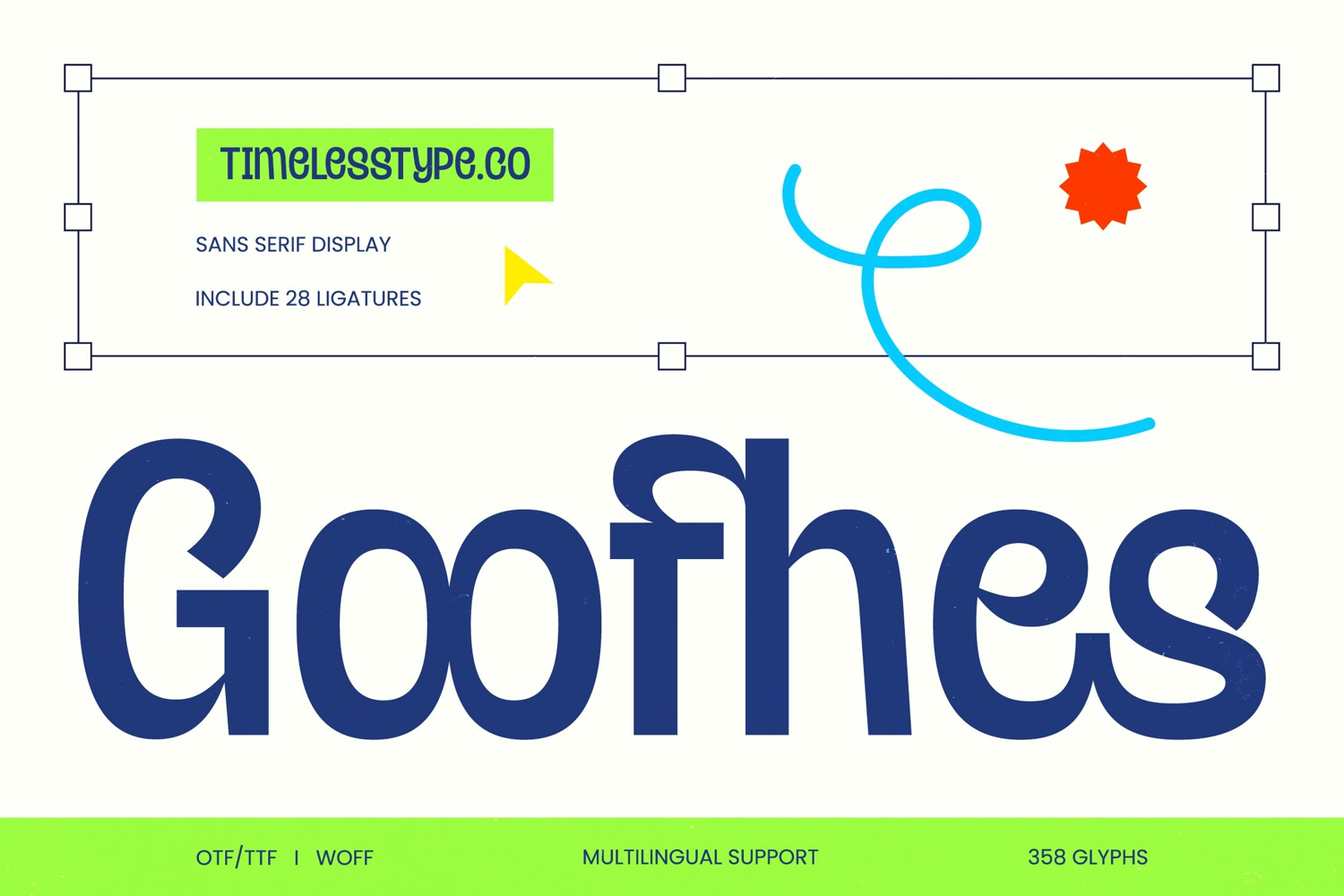
Goofhes - Sans Serif Display
Elevate your visual identity with a typeface that blends contemporary structure with playful character. Goofhes - Sans Serif Display is a modern sans serif designed for impact and personality. Its bold weight and curvilinear geometry create a distinctive rhythm that instantly grabs attention. Whether you are looking to revitalize a stale brand or launch a cutting-edge campaign, this high-impact display font provides the perfect balance of readability and artistic flair.
Discover the ultimate versatility for high-end creative projects across various industries. Goofhes - Sans Serif Display is the ideal application for luxury branding, bold packaging, and dynamic editorial design. Its unique aesthetic is perfect for logo design, headline typography, and social media graphics that need to stand out in a saturated market. From upscale fashion labels to innovative tech startups, this typeface brings a sophisticated yet approachable vibe to any medium.